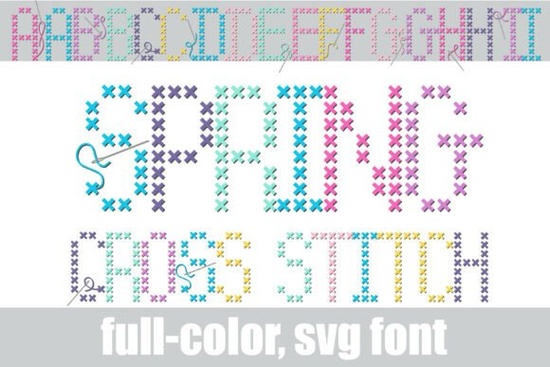
Spring Cross Stitch Font is a unique typeface that brings the charm of traditional needlework into the digital world. Designed for those who appreciate the beauty of handmade crafts, this SVG font captures the essence of cross-stitch patterns with its intricate details and vibrant color palette. Whether you're working on a project for a boutique shop, a DIY workshop, or a personal creative endeavor, this font offers a fresh and artistic way to express your ideas.
The Spring Cross Stitch Font features a full-color design that mimics the look of an actual cross-stitch sampler. Each character is carefully crafted to reflect the “X” pattern typical of embroidery, with a spring-inspired color scheme that includes turquoise, lavender, pink, and yellow. Some letters even include subtle elements like needles and threads, giving the font a sense of being a work in progress. This attention to detail makes it ideal for projects that aim to evoke a nostalgic or artisanal feel.
If you're looking for a font that combines traditional craftsmanship with modern design, Spring Cross Stitch could be the perfect fit. It's especially useful for branding, stationery, and home decor projects where a handcrafted aesthetic is desired. The font’s versatility allows it to work well in both digital and print formats, making it a valuable addition to any designer’s toolkit.
How Does Spring Cross Stitch Stand Out?
Unlike many standard fonts, Spring Cross Stitch goes beyond just text by incorporating visual elements that enhance the overall design. The inclusion of small details like thread ends and needles adds a level of authenticity that can make your work stand out. This makes it more than just a font it's a design element that tells a story.
One of the key advantages of using SVG fonts is their scalability without loss of quality. This means that no matter how large or small you use the font, it will maintain its sharpness and clarity. For designers and creators who need precision, this feature is invaluable.
Who Can Benefit from This Font?
Spring Cross Stitch is particularly useful for a variety of users, including graphic designers, crafters, and small business owners. If you run a print-on-demand store or create custom designs for clients, this font can help you add a unique touch to your work. Its artistic appeal also makes it a great choice for those who want to infuse a sense of nostalgia into their projects.
For hobbyists and DIY enthusiasts, the font provides a fun and creative way to personalize items like greeting cards, fabric prints, or home décor. It’s also a great option for educational materials related to crafts, as it can visually reinforce the theme of traditional needlework.
Where Can You Use This Font?
This font is suitable for a wide range of applications. It works well in both digital and physical formats, making it adaptable to different design needs. For example, you can use it in social media graphics, website headers, or even in printed materials like flyers and posters. Its colorful and detailed style makes it ideal for projects that require a warm, handmade feel.
When designing with Spring Cross Stitch, consider pairing it with simpler fonts to balance the visual impact. This helps ensure that the font remains readable while still standing out as a focal point. Additionally, using it in combination with illustrations or patterns that reflect the same artisanal theme can enhance the overall design.
Whether you're looking to add a unique touch to your design work or explore new ways to express creativity, the Spring Cross Stitch Font offers a fresh and artistic approach. Its blend of tradition and modernity makes it a versatile tool for anyone involved in design, crafting, or small business.
As you experiment with Spring Cross Stitch, keep in mind that the best results often come from thoughtful application. Try different layouts, color combinations, and design elements to see how the font enhances your work. With a little creativity, you can bring a new level of artistry to your designs.
Remember, the goal is to create something that feels authentic and meaningful. By using a font like Spring Cross Stitch, you’re not just adding text you’re adding a piece of history and craftsmanship to your work.
- Experiment with different design layouts to find the best visual impact.
- Pair it with complementary fonts for balance and readability.
- Use it in both digital and print formats to maximize its versatility.